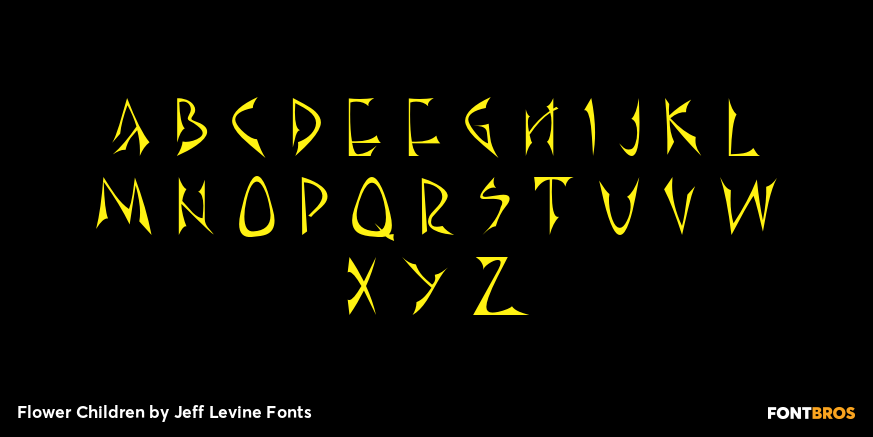
Flower Children
At the apex of the 1960s-70s Hippie movement, San Franscisco's Haight-Ashbury district was the epicenter of the Love Generation, and the Fillmore (East and West) were the city's musical venues.
Inspired by a 1970 concert poster, the Art Nouveau influence was strongly felt in the hand lettering from that poster, which is the basis for Flower Children JNL.